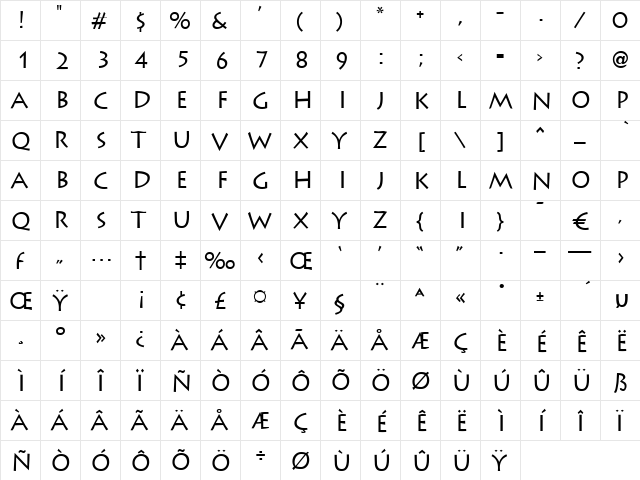
Gomorrah Regular
Design Context for Gomorrah Typeface
Gomorrah offers clean, dependable letterforms without strong stylistic allegiance, making it a practical choice for designers who need flexibility.